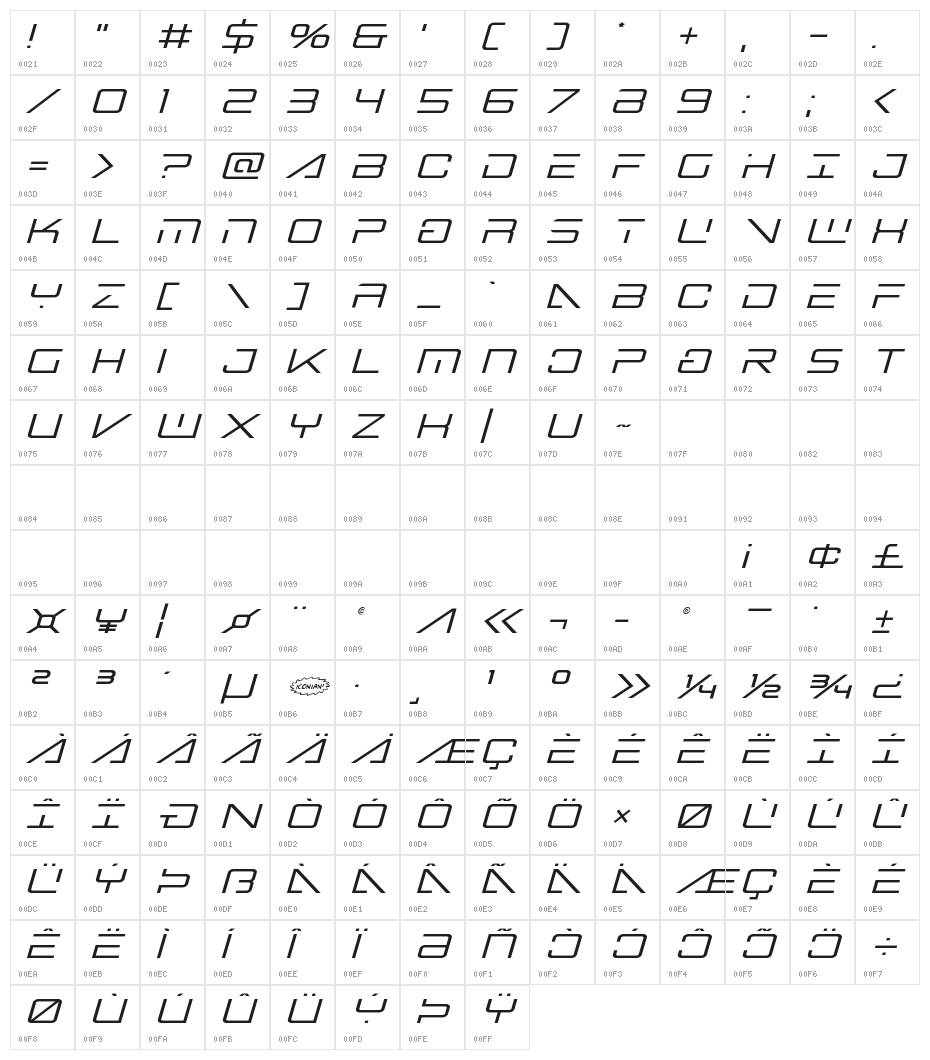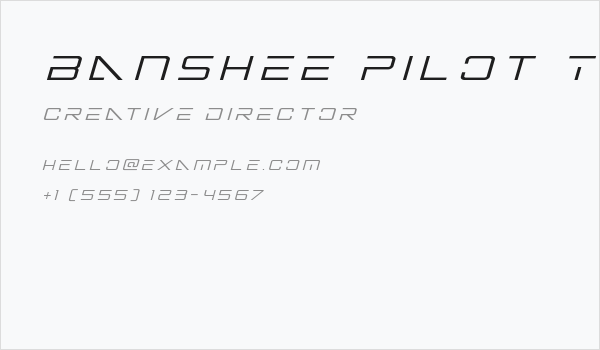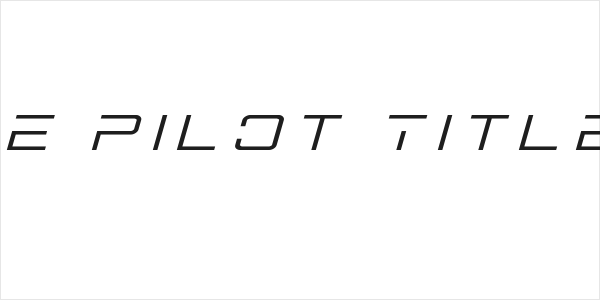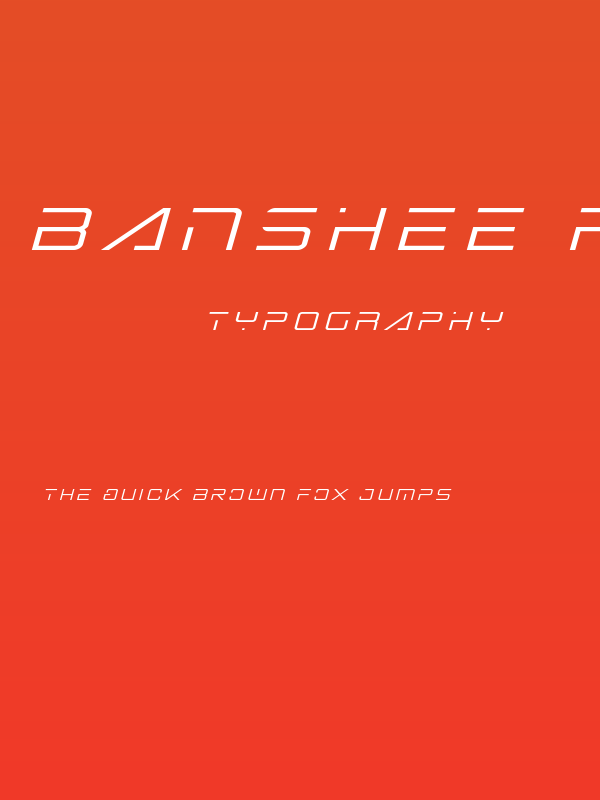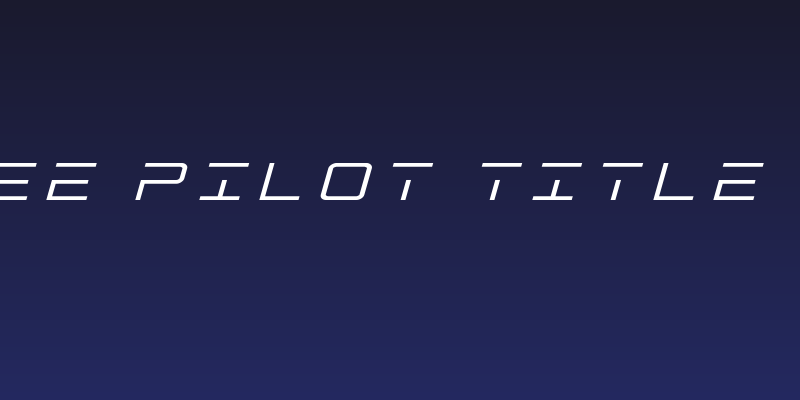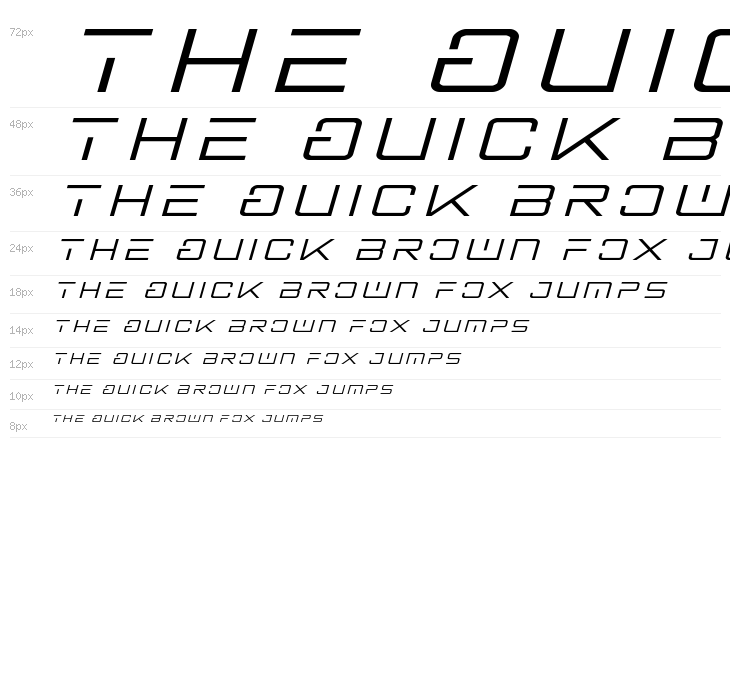
Banshee Pilot Title Italic Font
This font features a futuristic and sleek design, characterized by its italicized and angular letterforms. The characters are slightly condensed, giving a streamlined appearance that suggests speed and modernity. The strokes are uniform in weight, contributing to a clean and cohesive look. The font includes both uppercase and lowercase letters, numerals, and a variety of special characters, making it versatile for different design needs. Its geometric shapes and sharp edges make it ideal for projects that require a contemporary and tech-savvy aesthetic.
| Proposed Projects | Ideal for technology branding, sci-fi movie posters, video game titles, and modern advertising campaigns. |